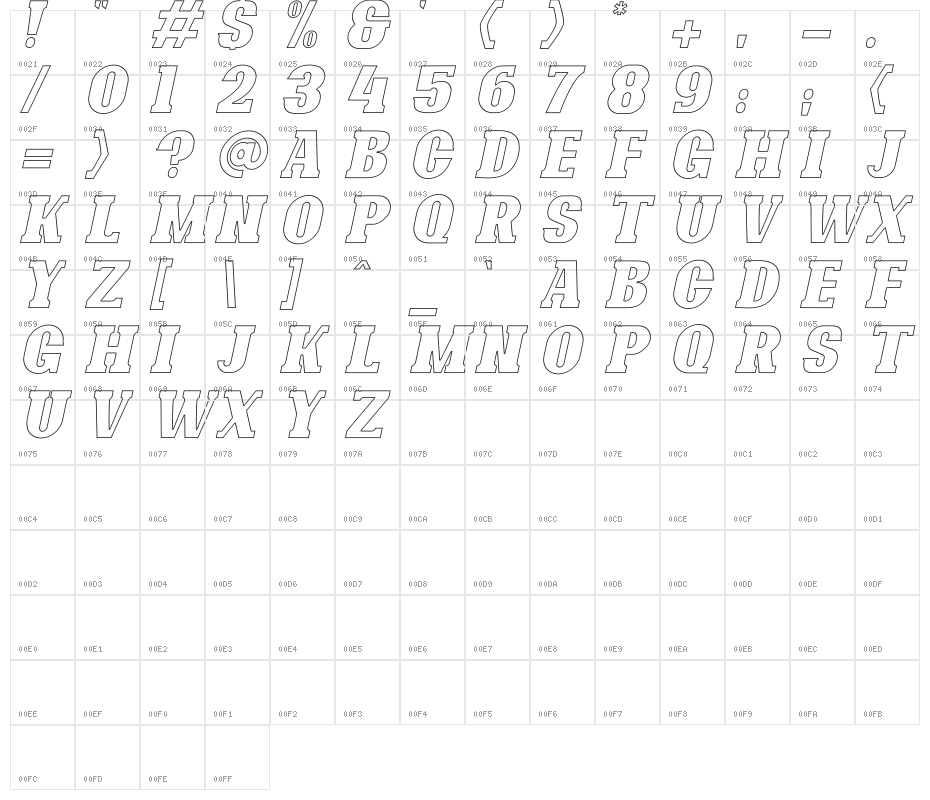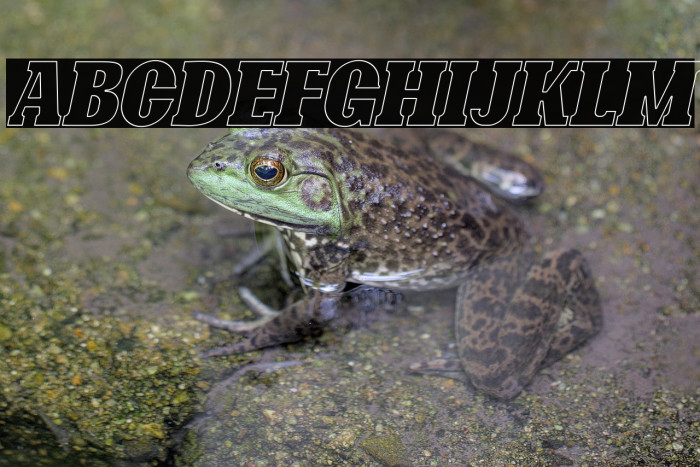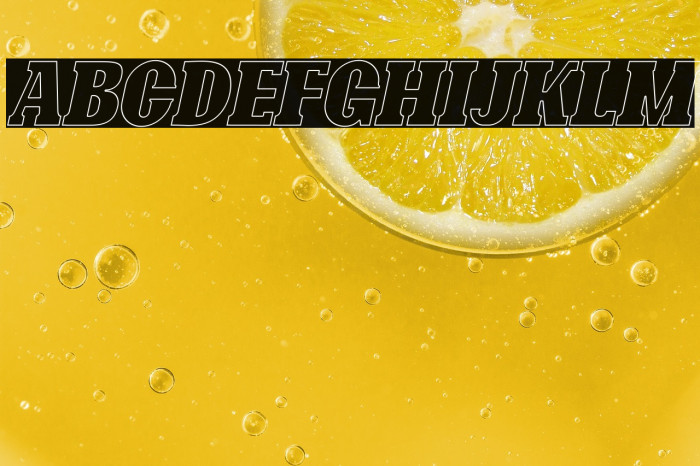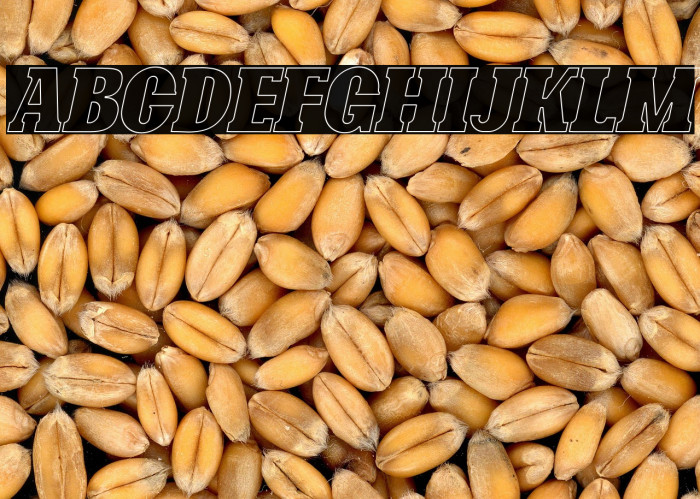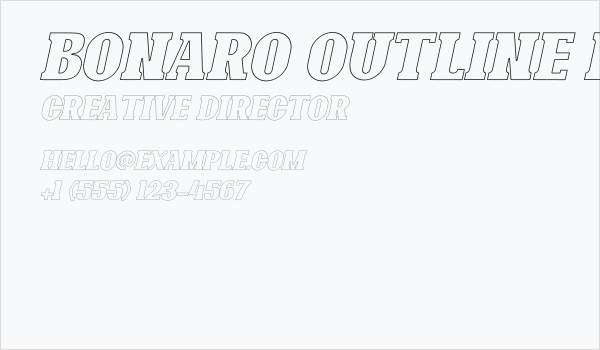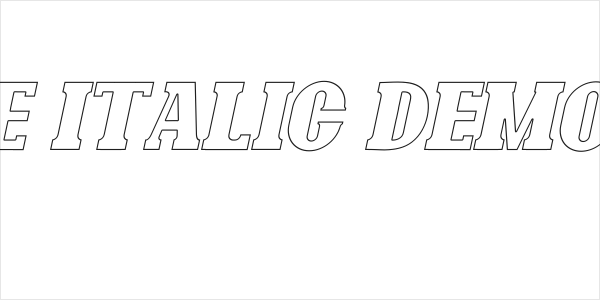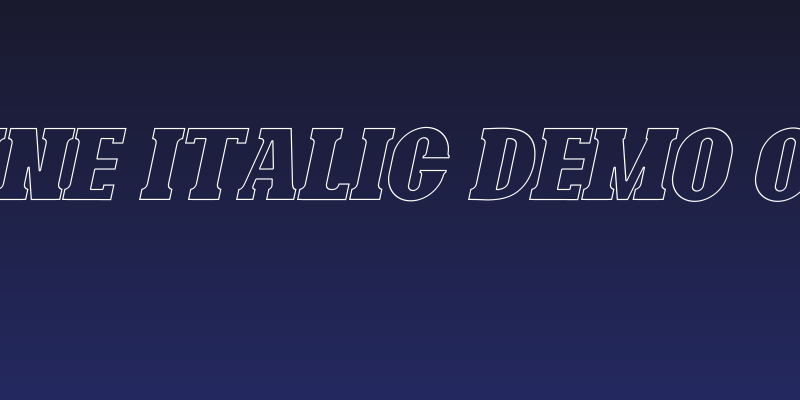
Bonaro Outline Italic Demo Outline Italic Font
Bonaro Outline Italic Demo Outline Italic Description
This font features a bold, outlined style with an italic slant, giving it a dynamic and modern appearance. The uppercase and lowercase letters maintain a consistent outline thickness, creating a cohesive look across the alphabet. The numerals and special characters are designed to match the bold and outlined aesthetic, ensuring uniformity throughout. The italic angle adds a sense of motion and energy, making it suitable for eye-catching designs. The font's outline style allows for creative use of color and layering, making it versatile for various design projects.
| Proposed Projects | Ideal for posters, logos, headlines, and any design requiring a bold statement. |